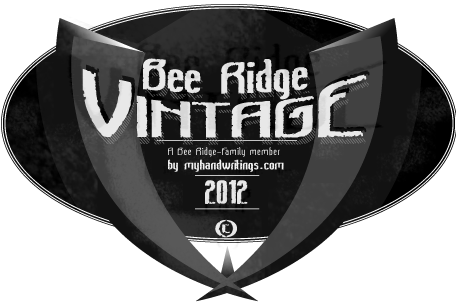
Preview and download Bee Ridge Vintage Font. Created by Runes & Fonts in Fancy Eroded styles with Free for personal use license.
This is an eroded / stony version of Bee Ridge Font what best fits to vintage style designs. Bee Ridge is a semi condensed sans serif family which contains Regular, Bold, Italic and Bold Italic versions. As I am currently working on this family the character set and the glyphs will contain more elements than the vintage edition. Feel free to drop me a line in case of questions, reporting errors, unkerned pairs or any feedback. That would also help me in my design work, and would be greatly appreciated! |